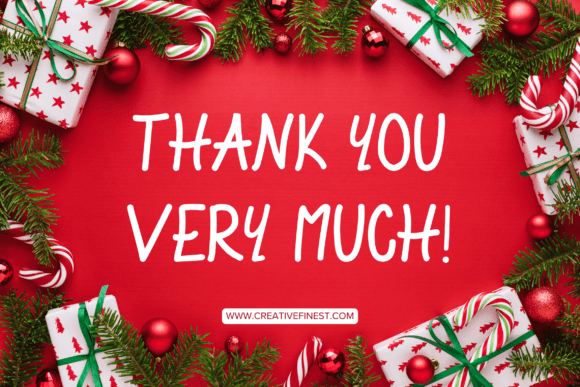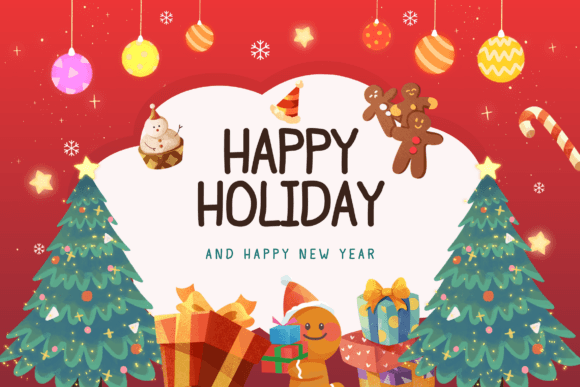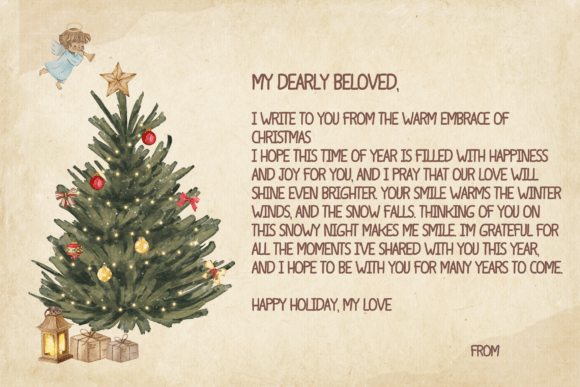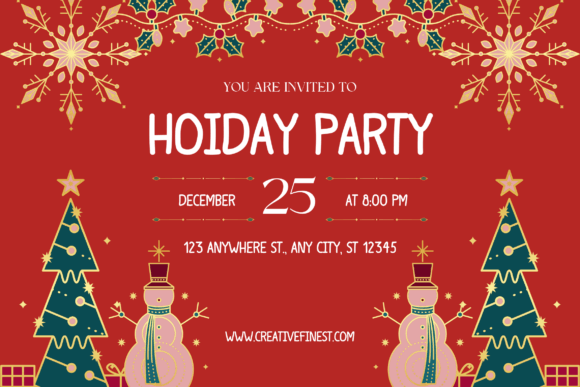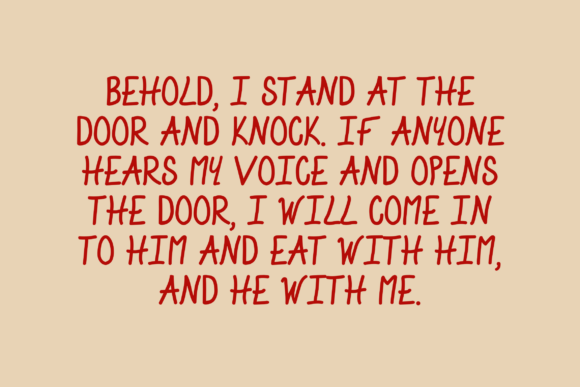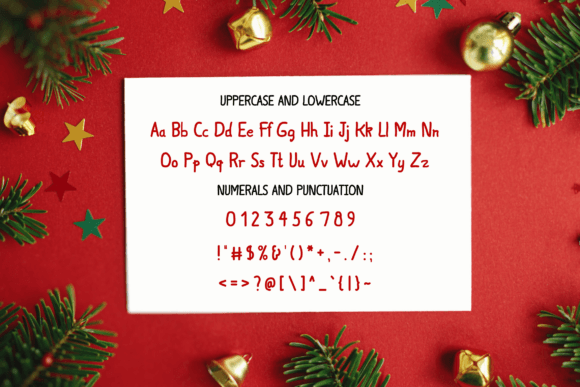
The Joy of Eadsele Font: A Handmade Holiday Delight
I still remember the design struggle I faced while working on a Christmas project for a client. I was tasked with creating a festive invitation that captured the warmth and cheer of the holiday season. As I scrolled through font after font, nothing seemed quite right ā until I stumbled upon Eadsele Handmade Font. Its playful, handwritten style instantly added a joyful feel to my design, and I knew I’d found the perfect fit. In this article, I’ll share my love for Eadsele Font, its features, and how to make the most of it in your designs.
An Honest Review of Eadsele Font
- ⨠Cheerful and festive vibe: Eadsele Font is designed to bring a smile to your face. Its handmade, cursive style is perfect for creating holiday projects that exude warmth and joy.
- ā Highly versatile: Whether you’re designing Christmas cards, invitations, or decorations, Eadsele Font adapts seamlessly to various design contexts.
- š Playful and charming: The font’s whimsical feel adds a touch of personality to your designs, making them stand out from the crowd.
While Eadsele Font is a delightful addition to any design project, there are a few minor considerations to keep in mind:
- š¤ Limited use in formal contexts: Due to its playful nature, Eadsele Font might not be the best fit for formal or professional projects.
- ā ļø Occasional kerning issues: As with any font, you might encounter some kerning issues, especially when using it in combination with other fonts.
The Designer Inspiration Behind Eadsele Font
Eadsele Font was designed with the holiday season in mind. Its creator wanted to craft a font that captured the warmth and joy of handmade holiday decorations. Inspired by traditional festive fonts, Eadsele Font brings a modern twist to classic holiday designs.
| Font Name | Eadsele Font |
| Author | creativetacos |
Q: What type of projects is Eadsele Font best suited for?
A: Eadsele Font is ideal for holiday projects, such as Christmas cards, invitations, decorations, and other festive designs.